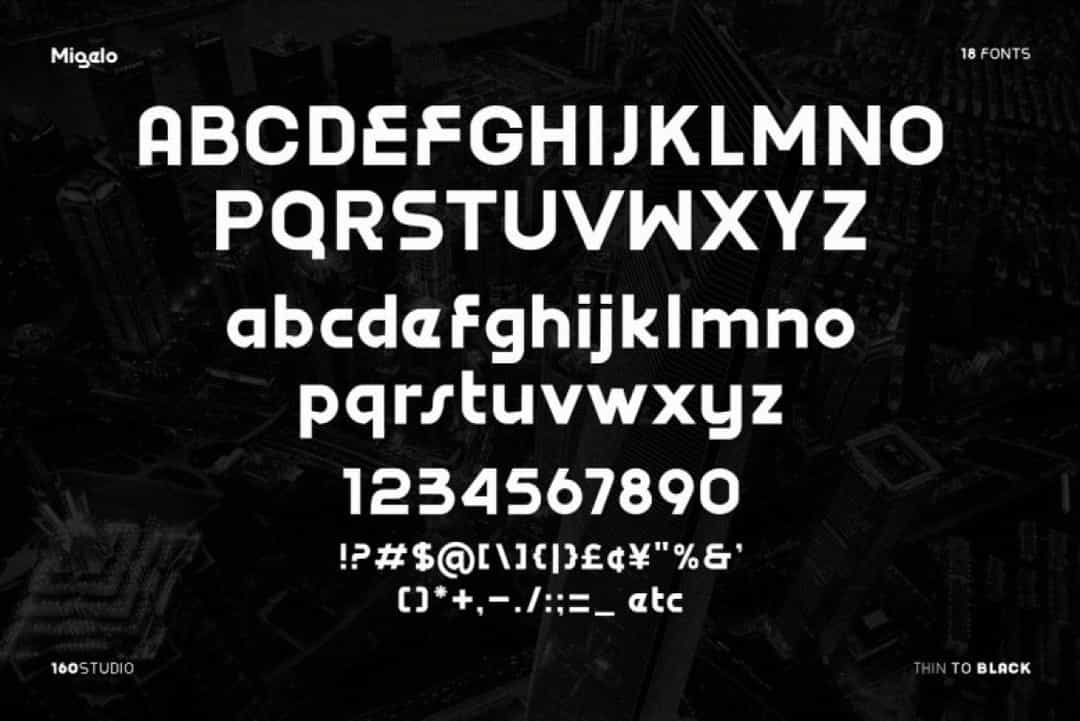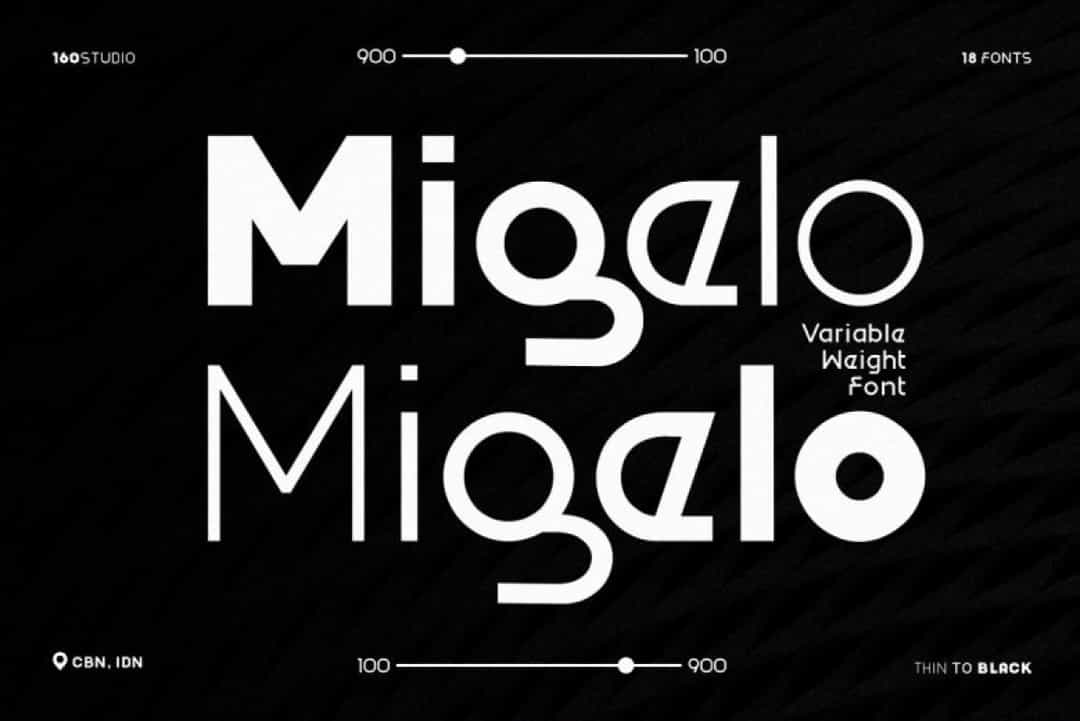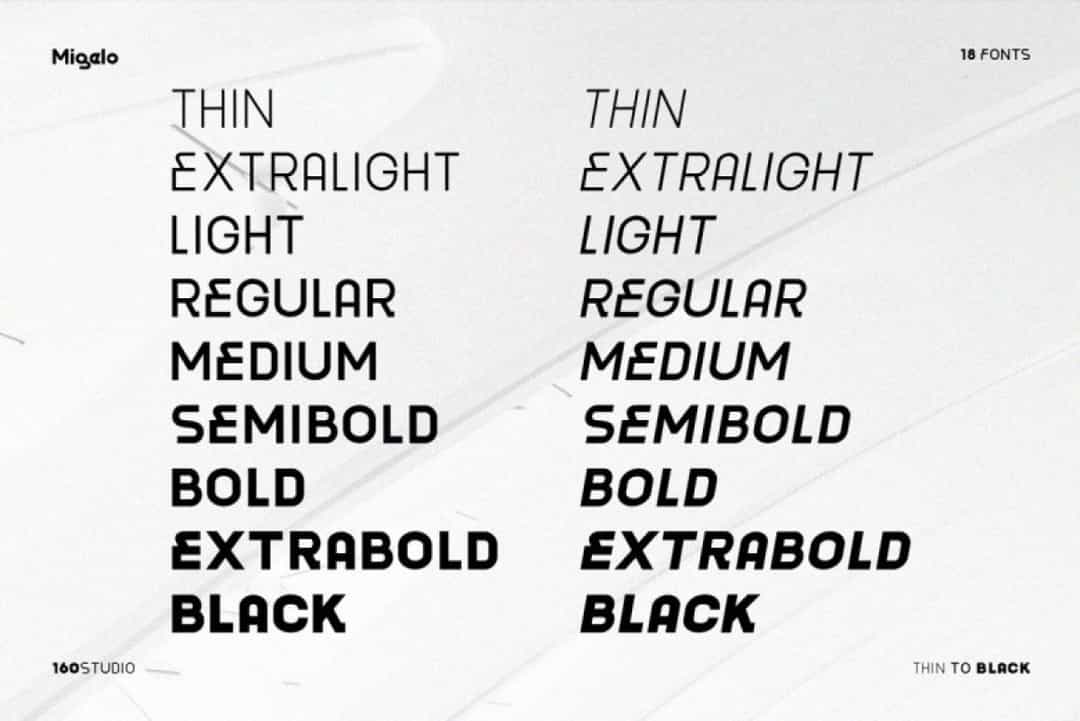
Discover Migelo Font, part of the Sans Serif collection—a versatile and unique font perfect for adding a personal touch to your projects. Download it for free and enjoy crafting designs with style, from invitations to social media posts. This font is available exclusively for personal use, giving you the freedom to create without limits. Unlock your creativity with Migelo Font today!
Migelo is an array of sans-serif fonts carefully created to present text at its highest possible quality. This versatile font includes nine variants from black to thin and nine italic variants for optimal text delivery and headline creation. Ideal for any application, Migelo should become your go-to option when crafting bold headlines!